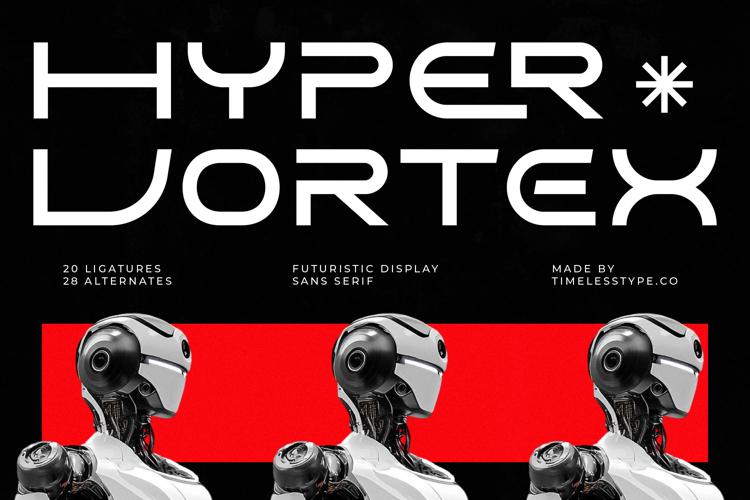
Hyper Vortex - Futuristic display Sans Serif Font
Unleash the power of the future with Hyper Vortex - Futuristic display Sans Serif Font, a typeface engineered for impactful branding. Its cutting-edge aesthetic features bold, clean lines and a commanding presence, perfectly capturing the essence of modern design. This futuristic display font stands out with its meticulously crafted geometric forms, ensuring every character exudes sophistication and strength.
Elevate your visual narratives with the dynamic capabilities of Hyper Vortex - Futuristic display Sans Serif Font. Beyond its striking primary forms, this font includes a rich set of 20 ligatures and 28 alternates, offering unparalleled creative freedom. These extensive stylistic options allow designers to craft truly unique and personalized typography, ensuring your message always resonates with distinctive clarity.